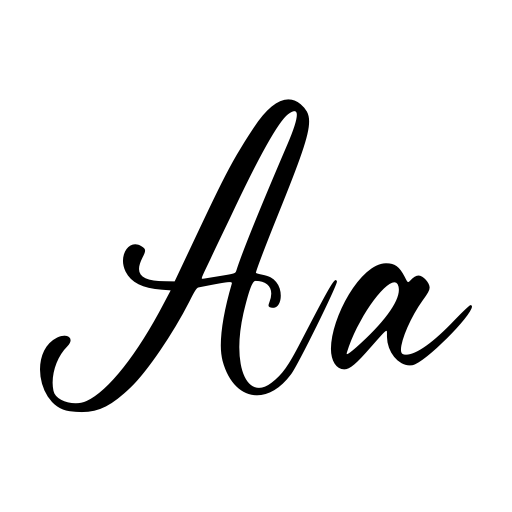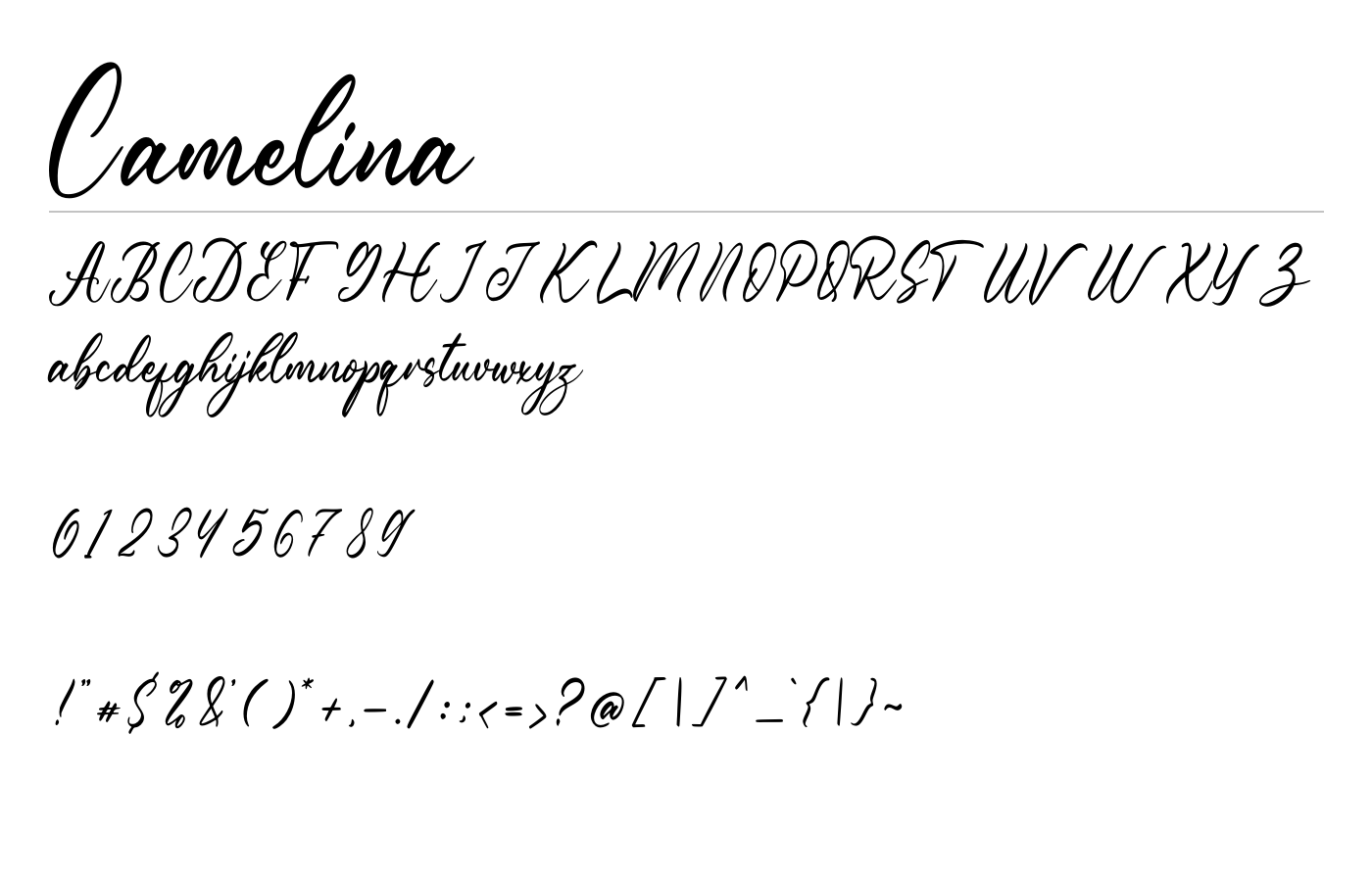
Camelina is an elegant script font with a delicate, handwritten style that combines smooth, flowing strokes with a light weight and slightly condensed width. Its refined letterforms exude a personal, sophisticated charm, making it perfect for branding, invitations, and fashion-related designs where a graceful and stylish touch is desired. This font works well in headlines and logos, adding a sense of warmth and elegance without sacrificing clarity.
| Font family | Camelina Font |
| Designer | Novia Himatun nisa |
| Trademark | Nissa Studio 2021 |